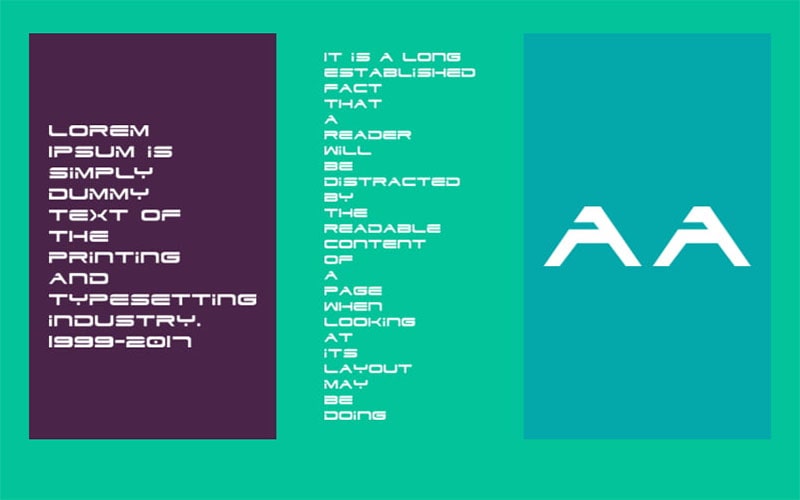
Dodger Font is a contemporary sans-serif typeface that commands attention with its bold and dynamic design. Created by the talented designer Daniel Zadorozny_ iconic fonts, this font brings a sense of modernity and clarity.
Making it a favorite among graphic designers and branding experts. Dodger Font stands out with its clean lines and strong presence, making it versatile for a variety of design applications.
It was designed by Daniel Zadorozny, a prolific type designer known for his work in both traditional and digital typography. Meeks has created numerous typefaces that are widely used in advertising, publishing, and branding.
It is available in several styles, offering flexibility for different design needs. Style are Dodger Regular, Dodger Bold, Dodger Italic, and Dodger Bold Italic.
Dodger Font
| Font Name: | Dodger Font |
| Style: | Techno, Sci-Fi, Typeface |
| Font Designer: | Daniel Zadorozny |
The unique styles make Dodger Font suitable for a wide range of uses, including Branding and Identity, Advertising, Web Design, Editorial Design, and Packaging.
It features geometric letterforms with a dynamic appearance. The design prioritizes legibility and visual impact, meticulously kerned and spaced, ensuring optimal readability and visual appeal in various sizes and contexts.